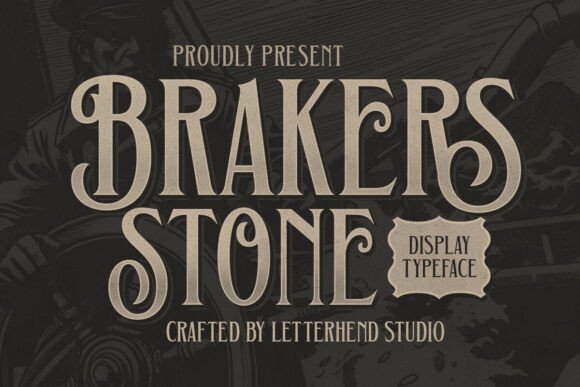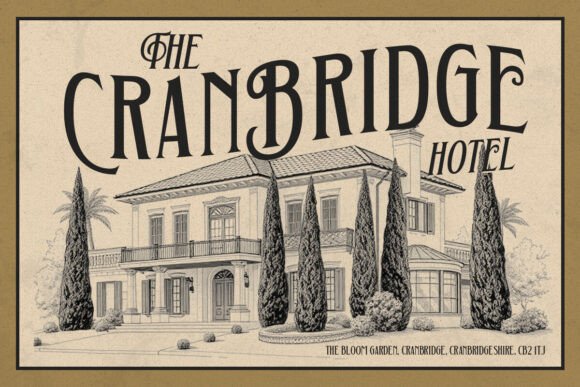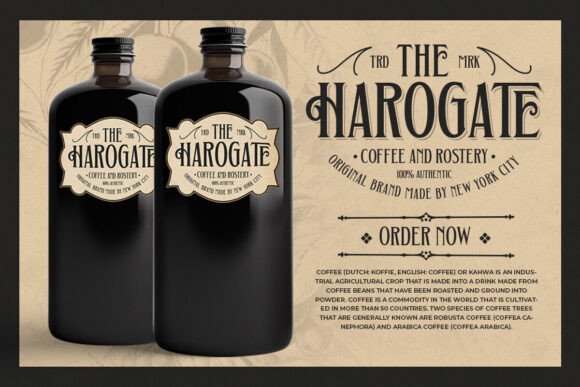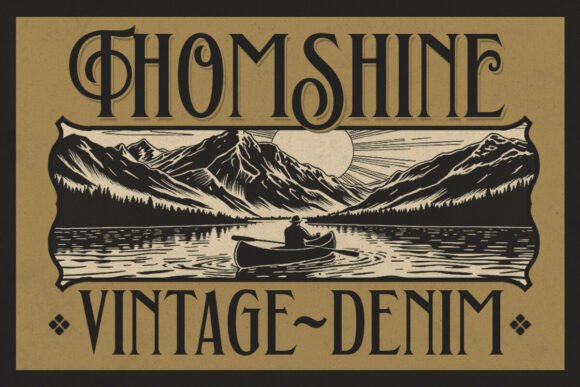
Brakers Stone Font
About the Brakers Stone Font
From logos to headlines, the Brakers Stone Font is the perfect choice for making a lasting impression. Perfect for creating a vintage design, Brakers Stone combines bold letterforms with decorative elements to deliver a timeless aesthetic. Whether for packaging, advertising, or apparel designs, this typeface brings a unique and memorable style that leaves a lasting impression.
Brakers Stone excels in headline applications, short text blocks on posters or packaging, and branding elements requiring a strong visual impact. Its decorative elements, however, make it less suitable for body copy or UI where readability is paramount. Long paragraphs set in Brakers Stone would prove difficult to read.
The font’s core personality is bold and vintage, conveying a sense of timeless quality and perhaps even a touch of ruggedness. It would be ideal for brands focused on heritage, craftsmanship, or products with a classic appeal.
Consider pairing Brakers Stone with a clean sans-serif like Montserrat for contrast and improved readability in supporting text, or a delicate script font like Great Vibes for a touch of elegance in secondary elements. These pairings will balance its strong personality while maintaining a cohesive visual identity.
Brakers Stone Font Usage Examples
Brakers Stone Font Example